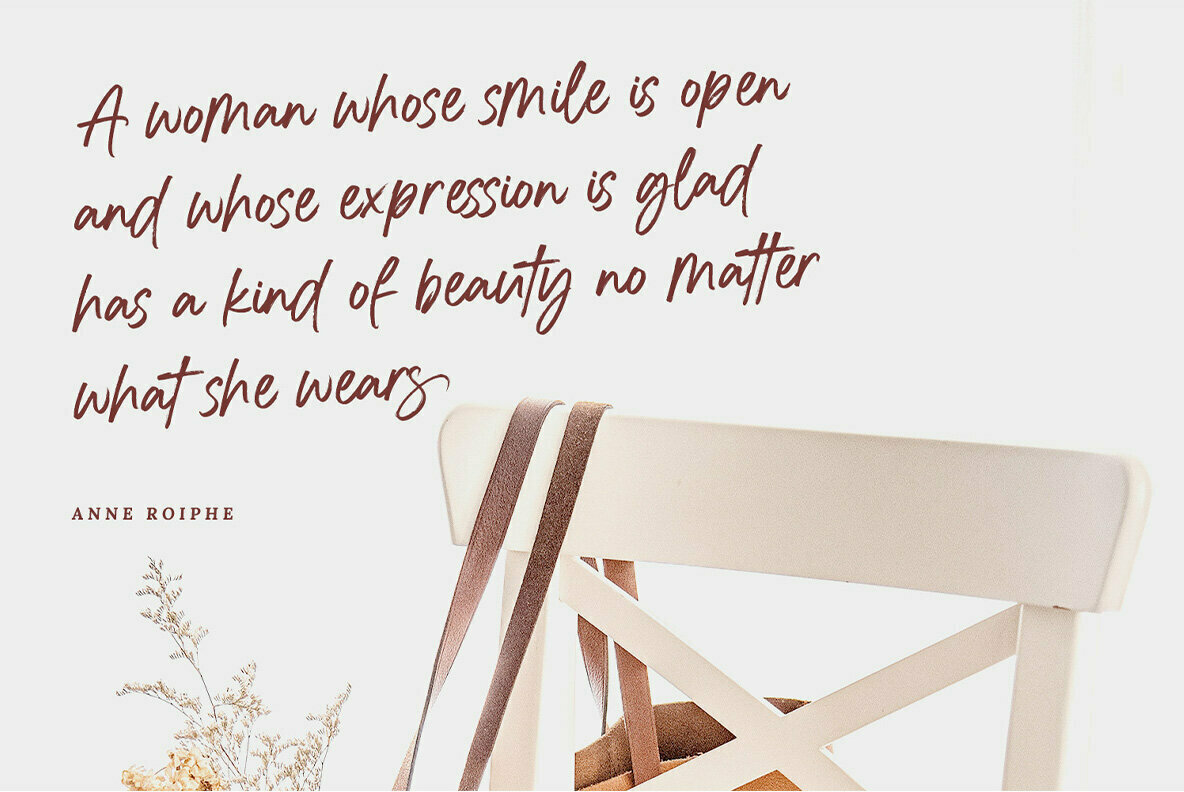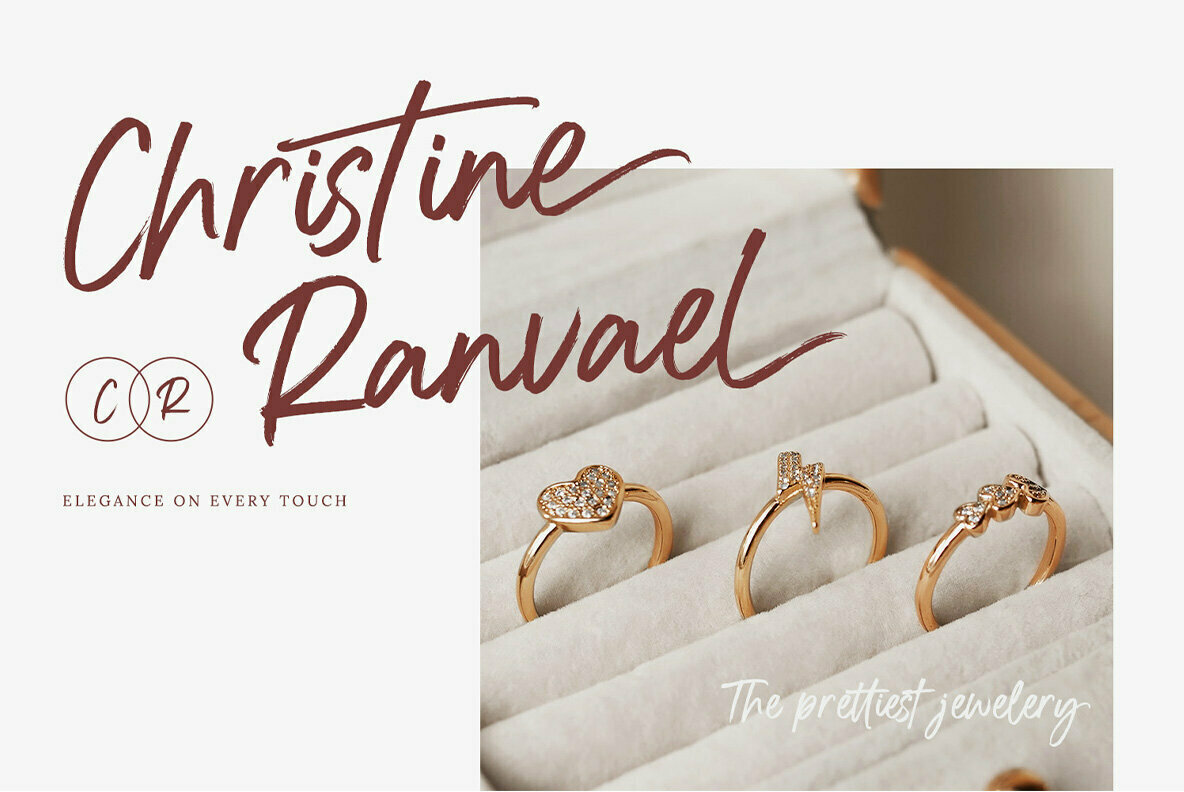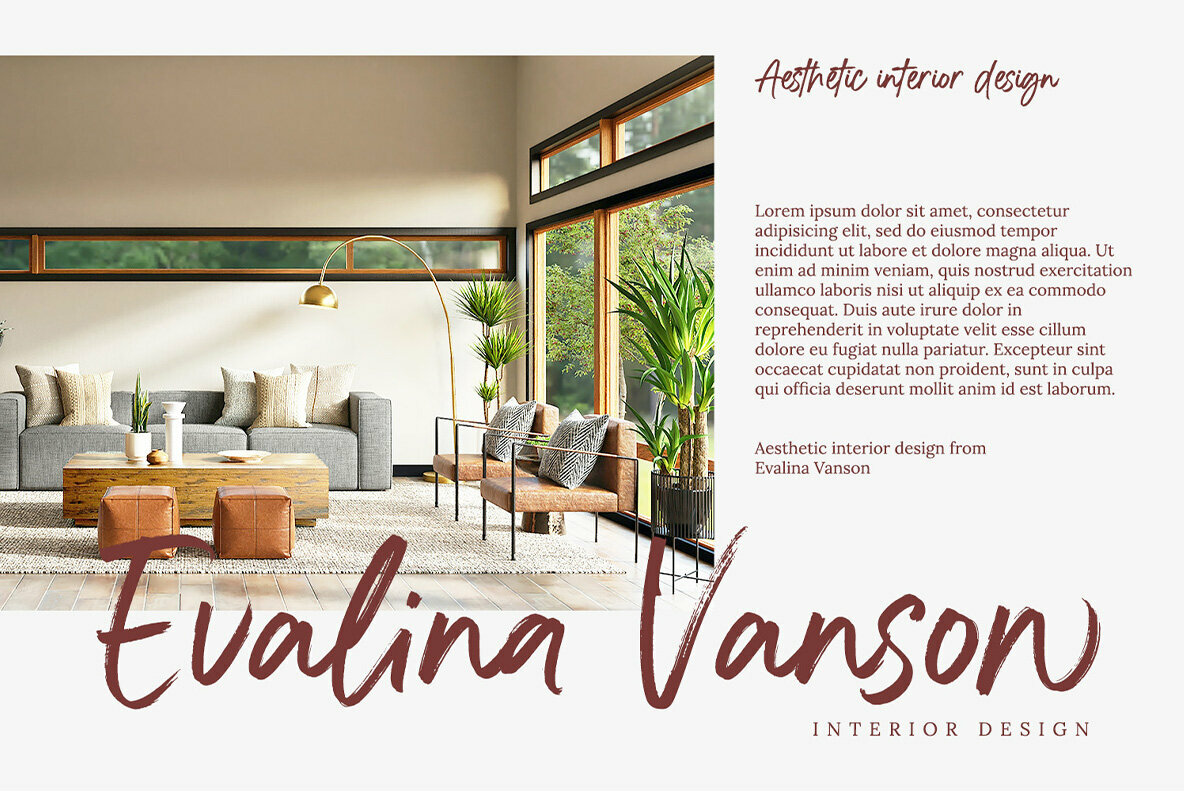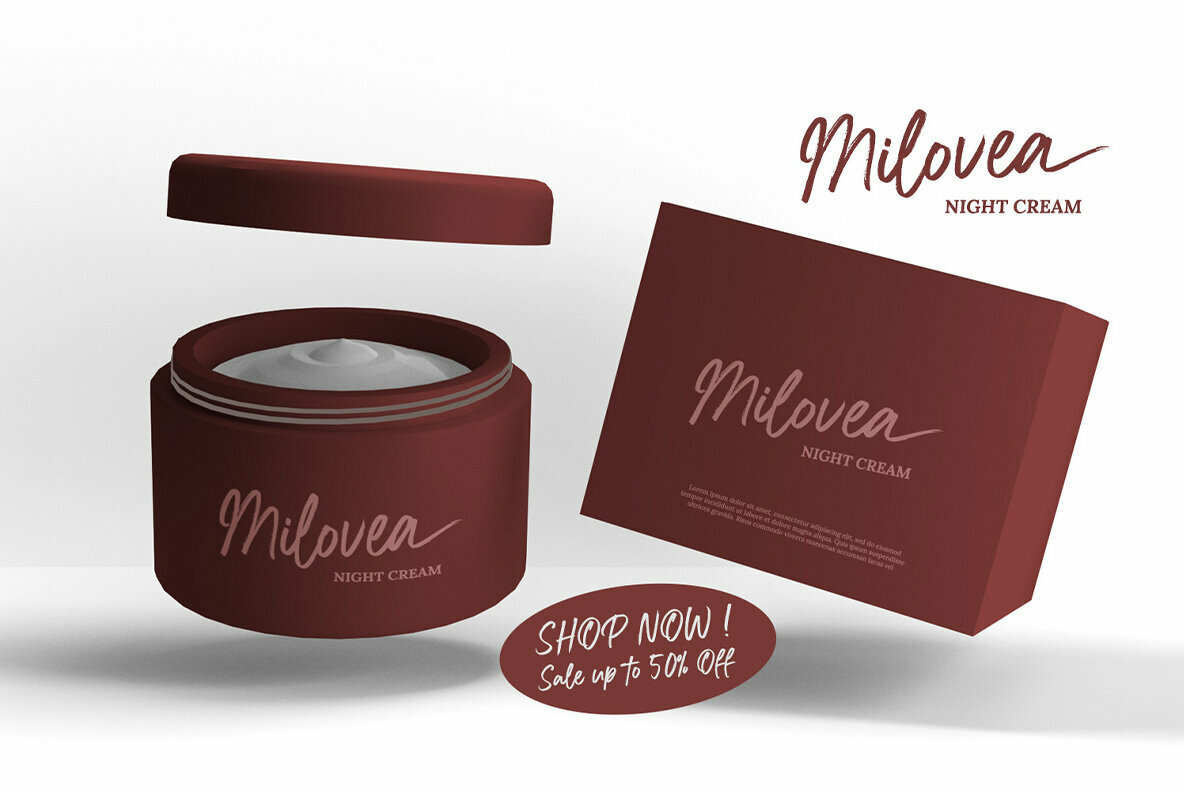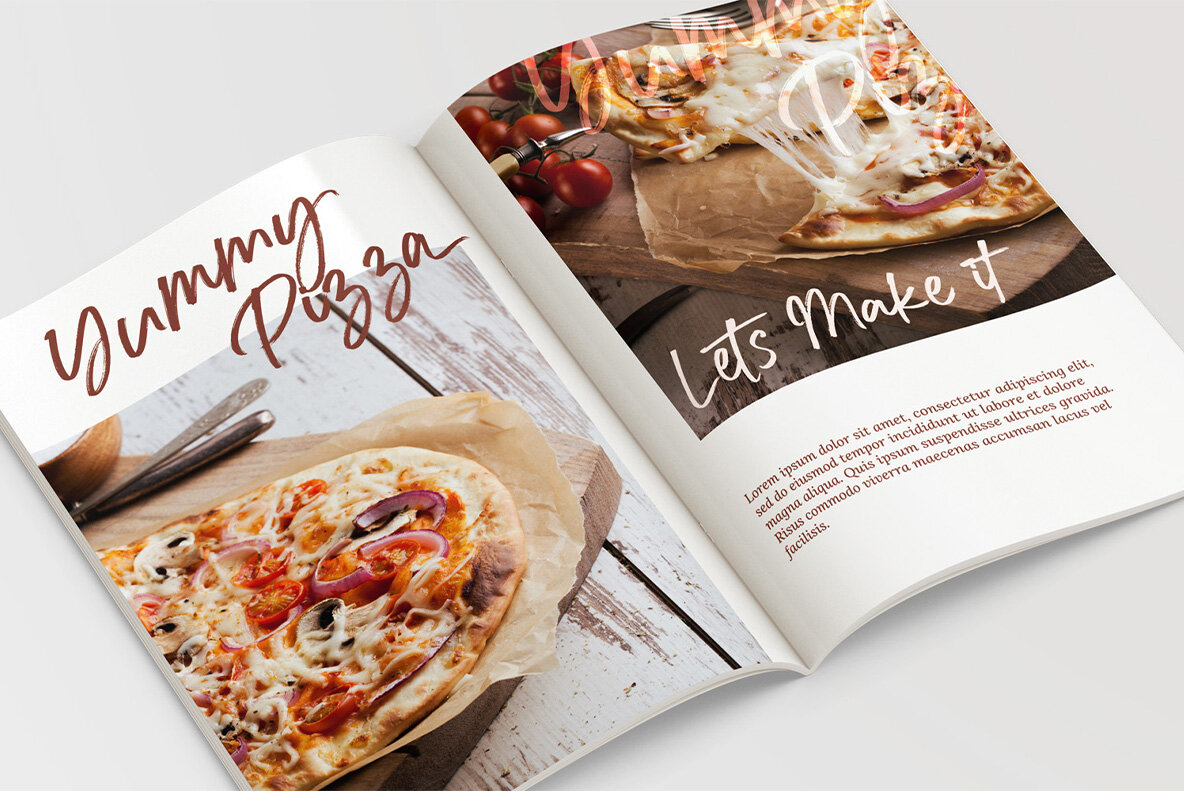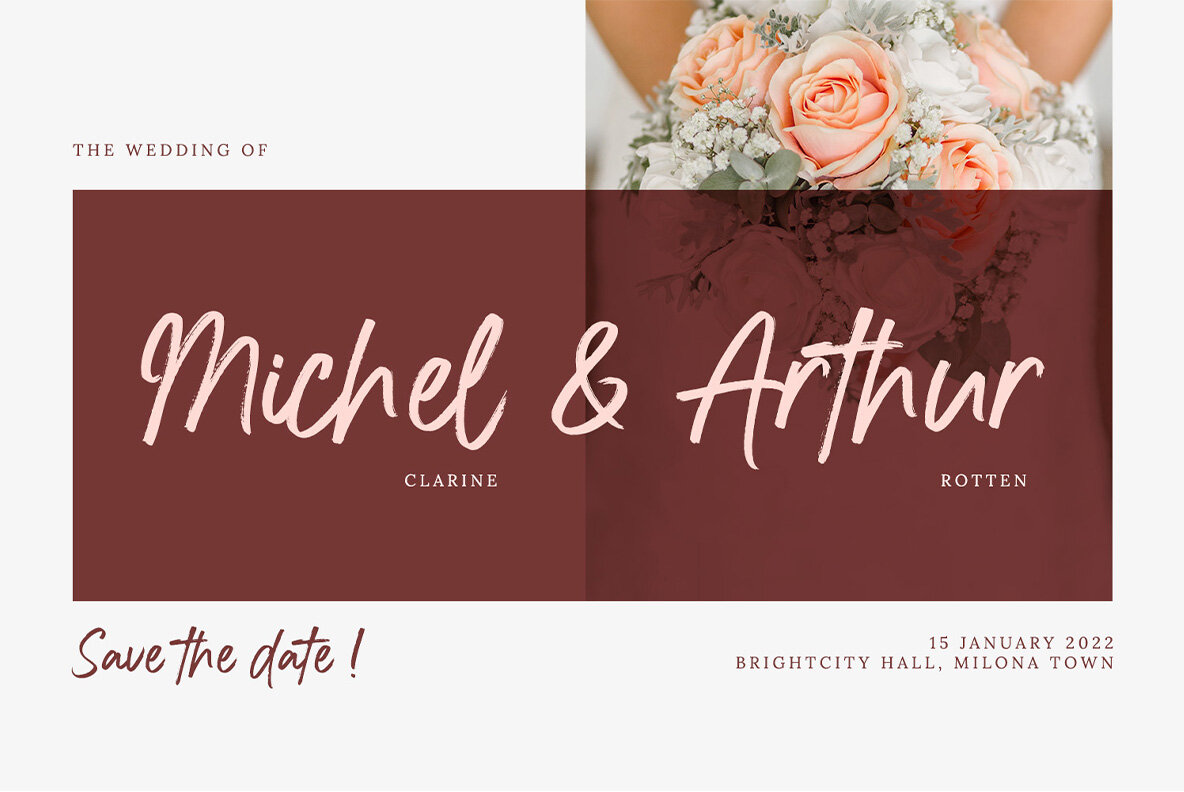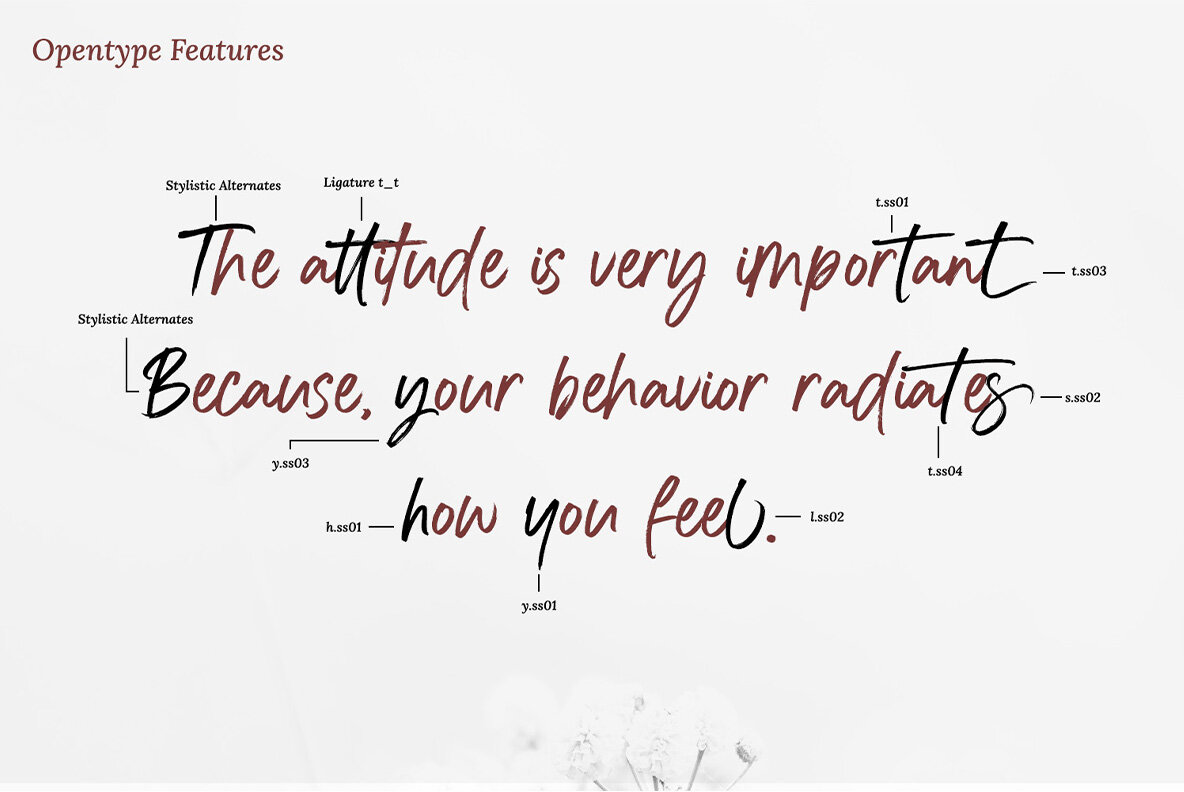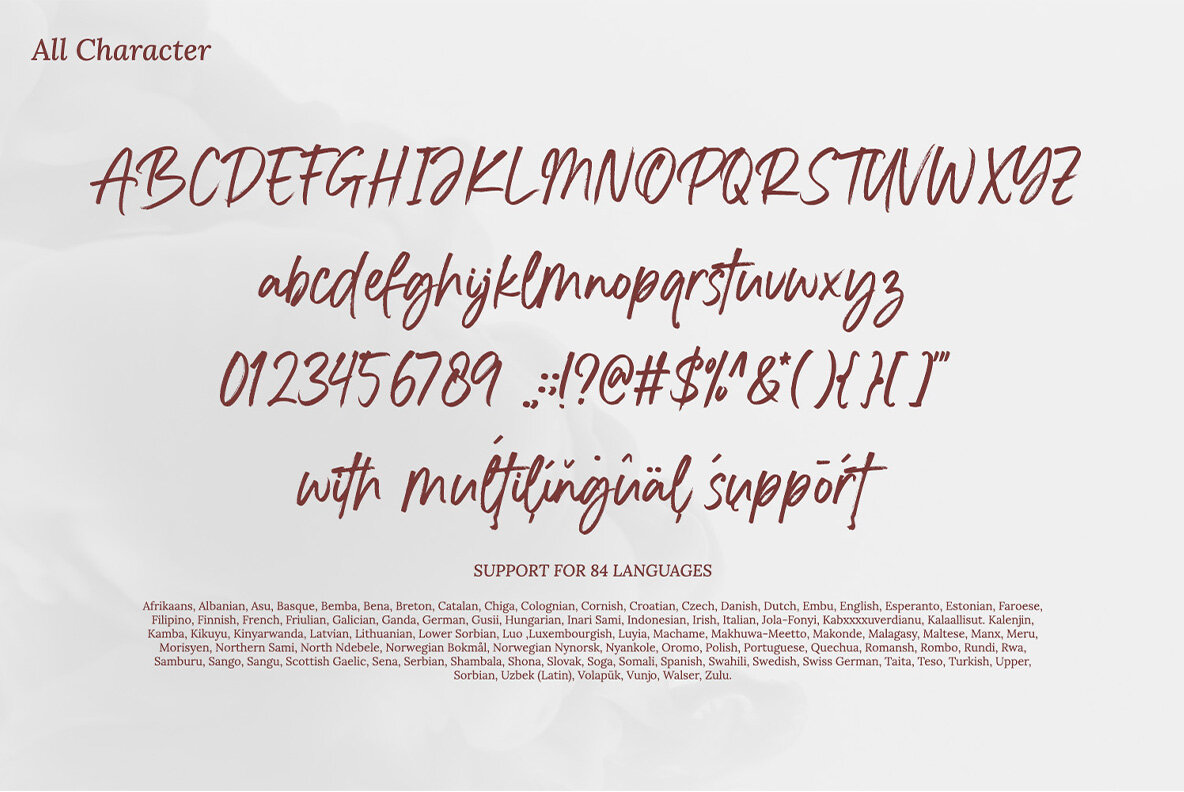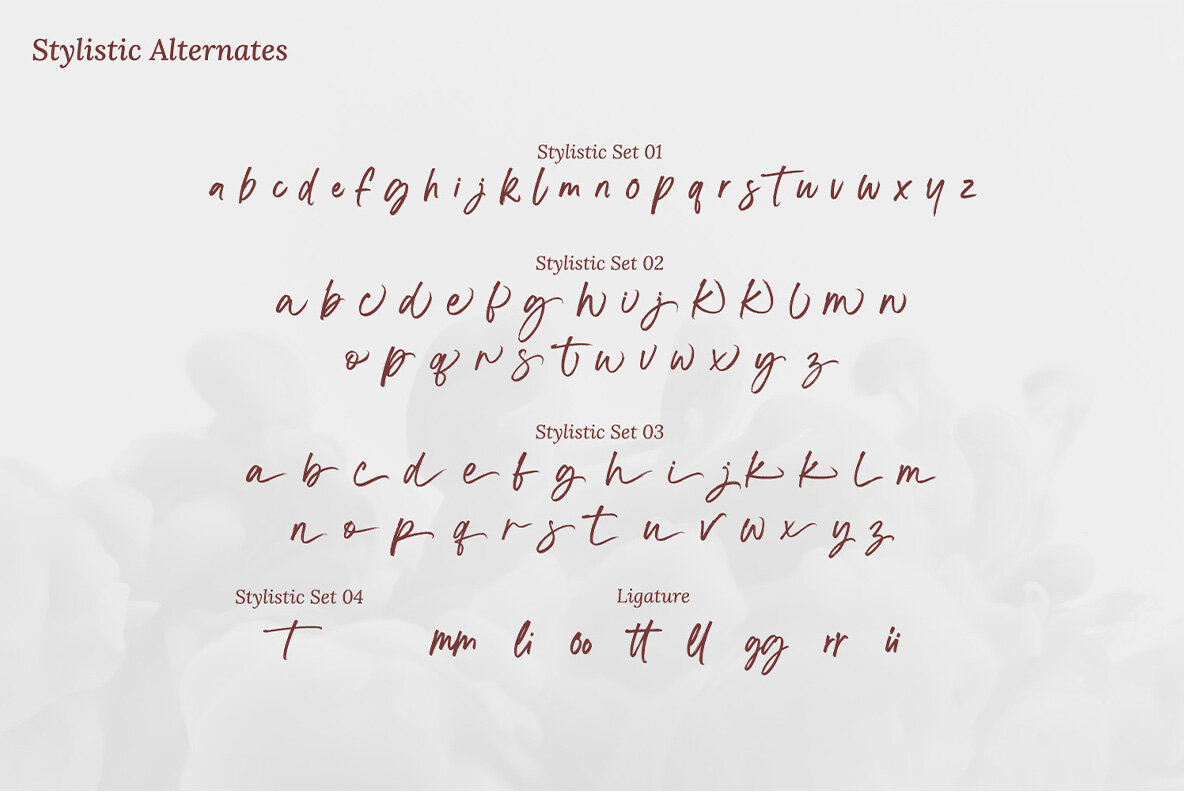
Realistic Twilight Font
Realistic Twilight
The allure of Realistic Twilight lies in its delicate blend of elegance and modernity, perfect for those seeking to infuse their designs with sophistication. This handwritten script font, accentuated by a brush style, is an excellent choice for creating unique aesthetic experiences that resonate across diverse audiences. Its multilingual support ensures your branding efforts are well-received globally.Realistic Twilight: A Handwritten Script Font